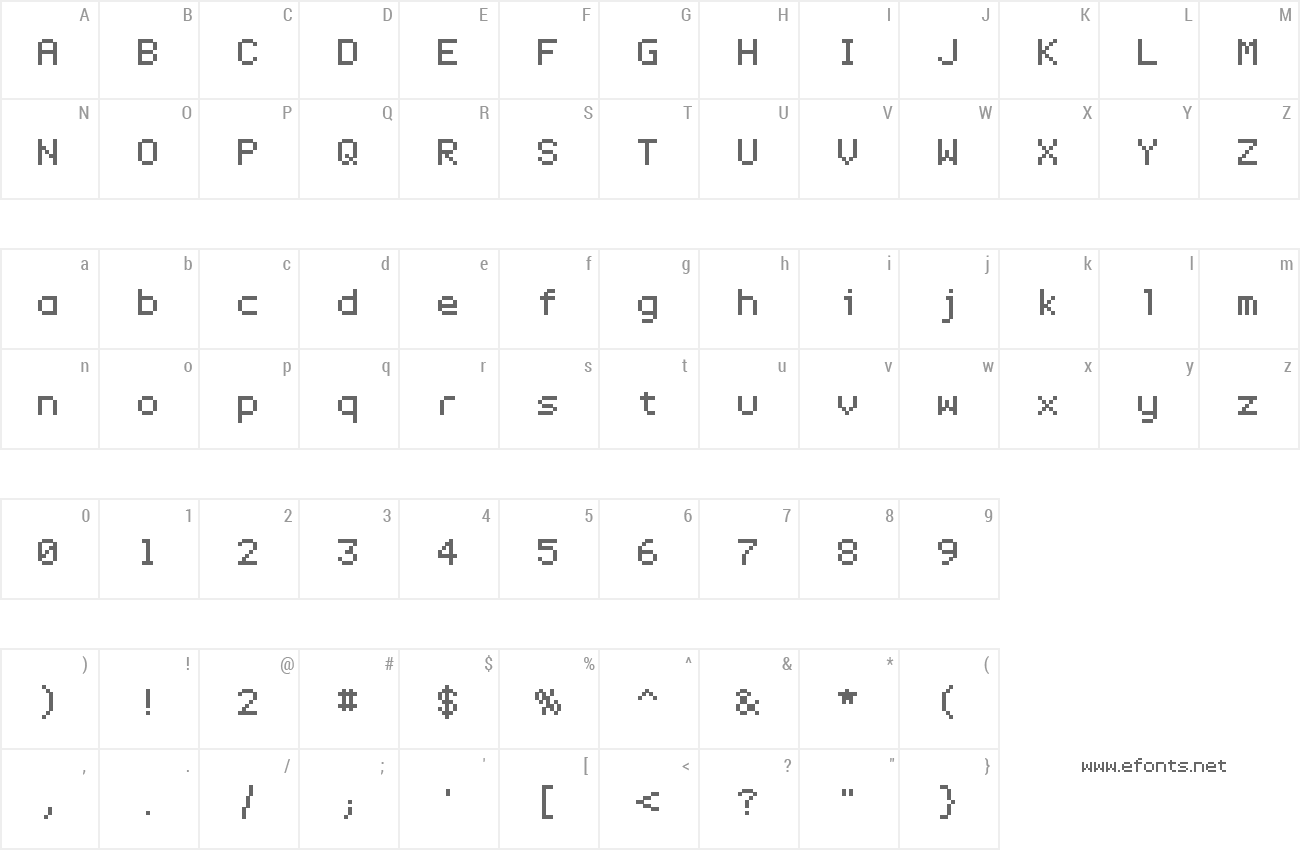
Enter Command by jeti: A small, square sans serif callback to the early days of graphic adventures in multiple styles. (This font is partially based on the font from the 1980 On-line Systems game, Hi-Res Adventure #1: Mystery House.) You are free to use this font for personal or commercial projects, all I ask is that you include credit. Licensed under CC BY 4.0: https://creativecommons.org/licenses/by/4.0/ More info: https://fontenddev.com/fonts/enter-command/ |